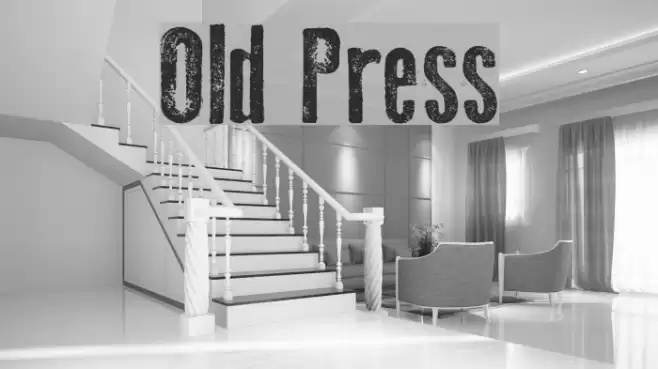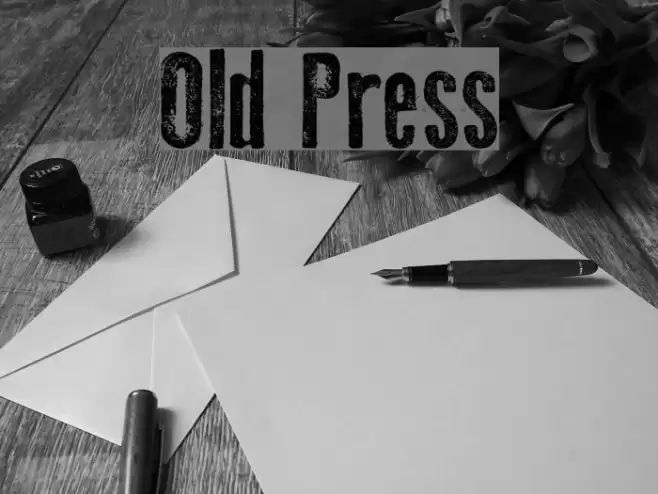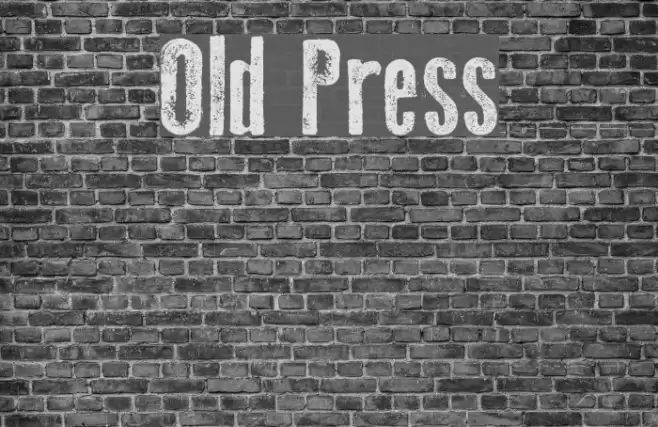
Old Press Font
Old Press Description
This font exhibits a rugged, distressed appearance reminiscent of vintage printing techniques. The characters are bold and carry a textured, worn-out look, giving them a unique, handcrafted feel. The uppercase and lowercase letters maintain a consistent style, with slightly irregular edges that add to the overall antique aesthetic. The numbers and special characters follow the same design, ensuring uniformity across all glyphs. This font's distinctive style is perfect for projects that require a touch of nostalgia or a retro vibe.
A bold, distressed font with a vintage, handcrafted appearance from Distorted Eroded fonts.
- Proposed Projects: Ideal for vintage-themed posters, retro branding, album covers, and any design that seeks to evoke a sense of nostalgia.
- Overall Style: Vintage